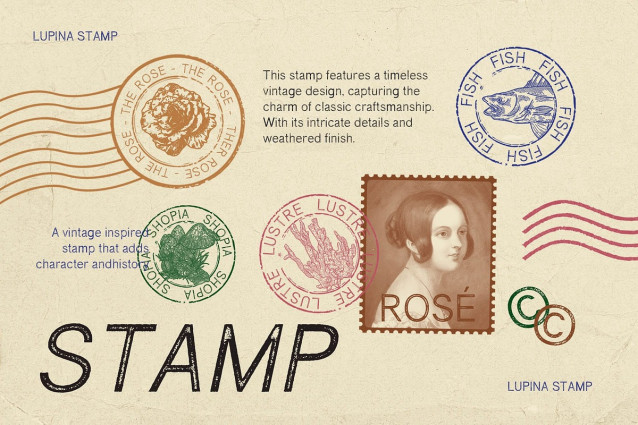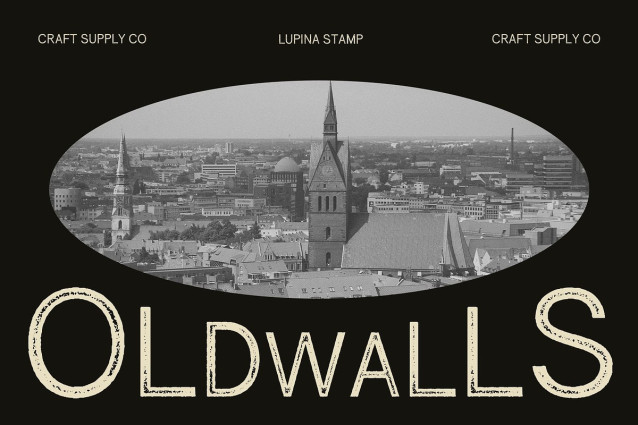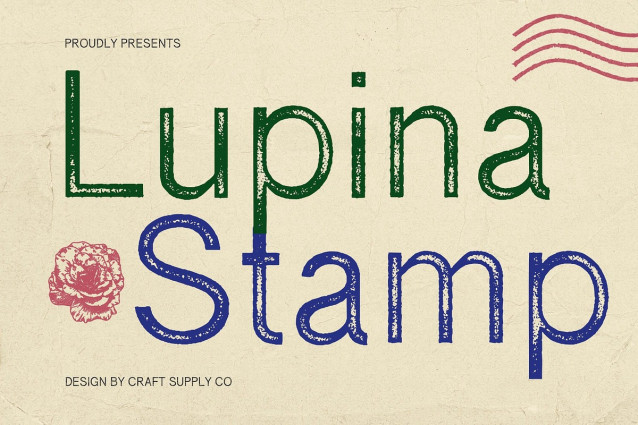
Lupina Stamp Font
Lupina Stamp Font is a modern sans-serif font featuring a slim, refined structure that blends the clarity of grotesque styles with the precision of geometric forms. Its minimalist letterforms are clean and elegant, perfect for sleek, modern compositions.
Stamp Texture for Authentic Character Enhanced with a subtle stamp effect, Lupina Stamp introduces a rough, organic texture that gives each letter a handcrafted, authentic feel. This visual treatment adds depth and uniqueness, making your designs feel more tactile and expressive. What sets Lupina Stamp apart is its subtle yet impactful stamp effect. This added texture introduces a worn, tactile quality—like ink pressed onto rough paper—bringing warmth, depth, and a sense of authenticity. The result is a font that feels both modern and handcrafted, allowing your designs to stand out with understated flair.
Contemporary Meets Distinctive By merging modern typography with vintage-inspired texture, Lupina Stamp offers a fresh yet familiar look. It’s ideal for projects that aim to strike a balance between clean professionalism and bold visual character.
Versatile for Creative Applications Whether you’re designing branding, editorial layouts, packaging, or digital graphics, Lupina Stamp brings sophistication and personality. Its adaptability makes it suitable for both minimalist and more expressive creative work.